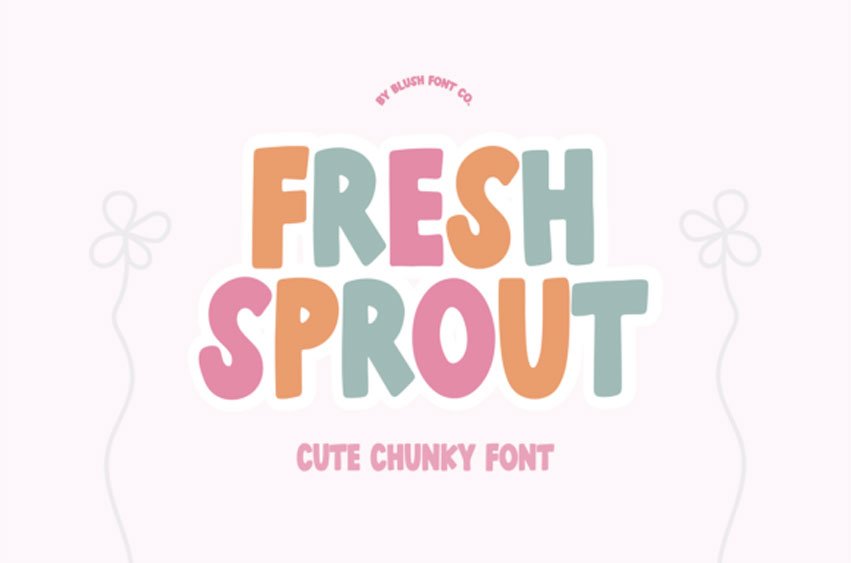
Fresh Sprout Font
Fresh Sprout Font is a playful and bubbly font with a chunky, hand-drawn style that exudes charm and positivity. Perfect for children’s projects, branding, greeting cards, stickers, and social media designs, this font brings a fresh and fun vibe to any creative work.
With its rounded edges and soft, friendly look, Fresh Sprout is an excellent choice for crafters and designers seeking a whimsical touch.